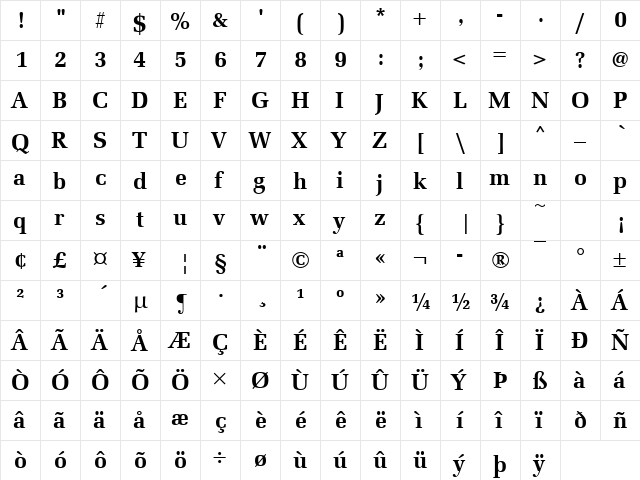
Becker Latino Bold
Design Context for Becker Latino Typeface
Becker Latino takes a measured approach to typography — its balanced proportions and neutral character make it a reliable workhorse for both digital and print work. The heavy weight commands attention and anchors typographic hierarchies.